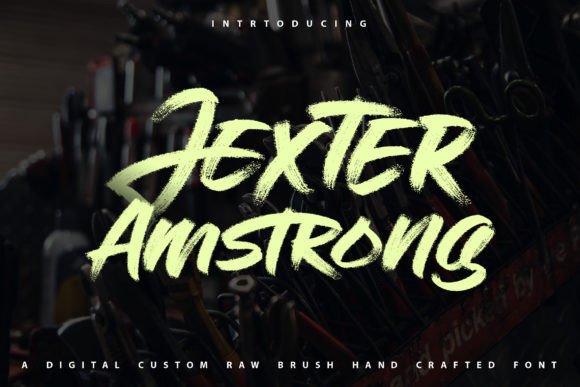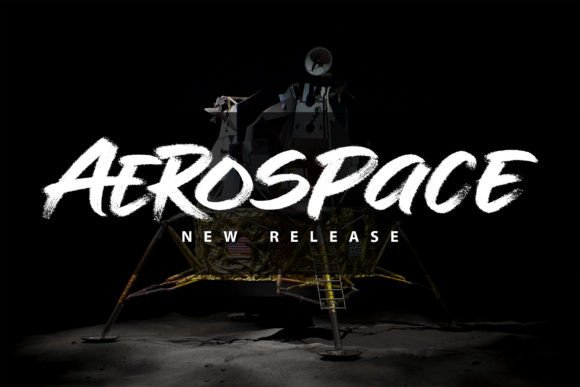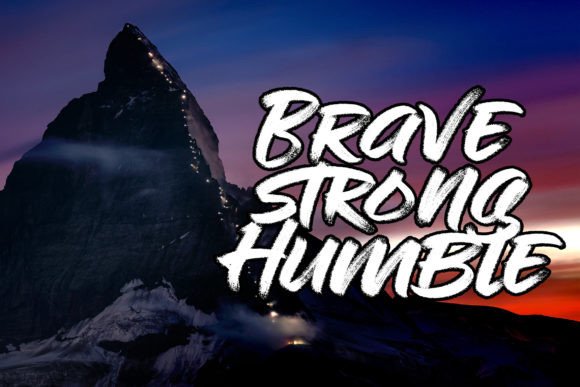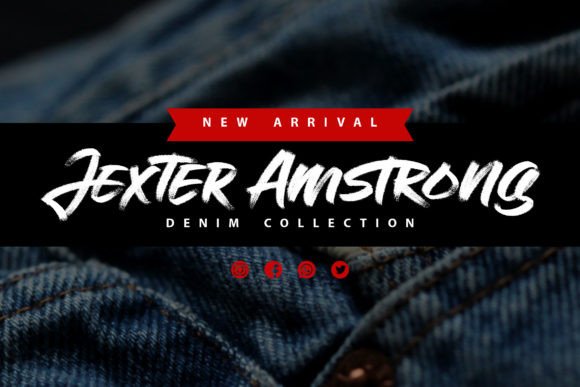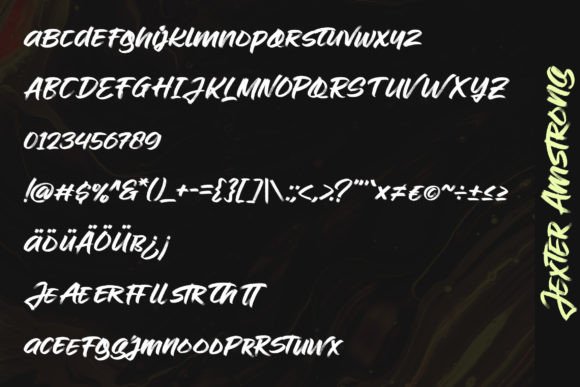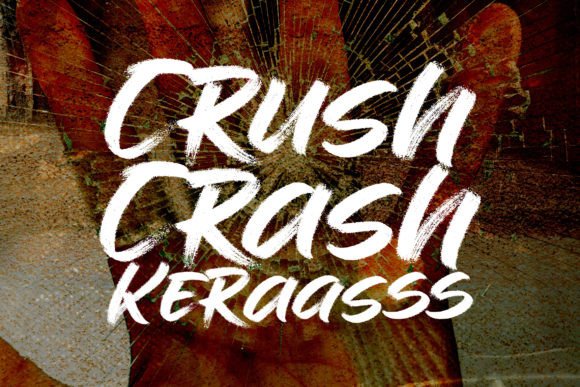
Jexters Amstrong Font
About Jexters Amstrong Font
**Jexters Amstrong** is a cool, modern, and raw-brush handwritten font that boasts an original and distinctive appearance. This font’s unique look makes it appealing and versatile for a wide range of creative applications, and its PUA encoding grants easy access to a wealth of amazing glyphs and ligatures, providing you with ample creative freedom.
One of the standout features of Jexters Amstrong is its cool and modern design, characterized by its raw-brush strokes. Each letter is crafted with a bold and expressive style, making this font an excellent choice for projects where you want to convey a sense of creativity and individuality.
Jexters Amstrong’s versatility shines in various design contexts. It is well-suited for crafting posters, branding materials, logos, social media graphics, product packaging, advertisements, product designs, labels, and much more. Its original and raw-brush appearance ensures that your work is both visually striking and authentic.
For posters and branding, Jexters Amstrong adds a touch of boldness and creativity to your designs, ensuring that they stand out and leave a memorable impression.
In product packaging and labels, this font brings a sense of uniqueness and authenticity, making your products more visually appealing and distinctive.
On social media and in advertisements, Jexters Amstrong’s cool and modern look enhances the impact and appeal of your posts and graphics, making them engaging and eye-catching.
In summary, Jexters Amstrong is a cool, modern, and raw-brush handwritten font that offers an original and distinctive look. Its versatility and expressive style make it a fantastic choice for various design projects, where it has the power to infuse your creative work with a sense of creativity and individuality. Embrace Jexters Amstrong to create visually striking and authentic designs that captivate your audience.